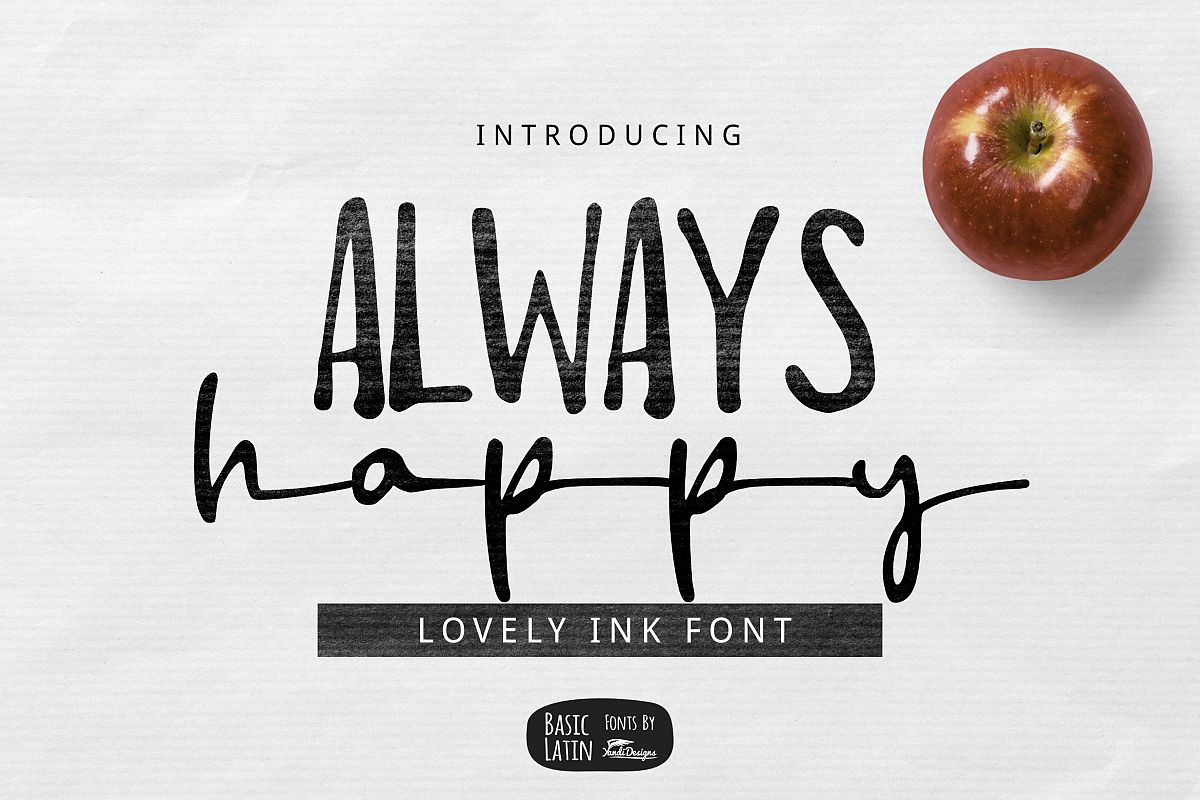
Always Happy Ink Font
Always Happy Font
Simple long ink multipurpose font , suitable for many project children book, quotes, logo , heading , title etc.